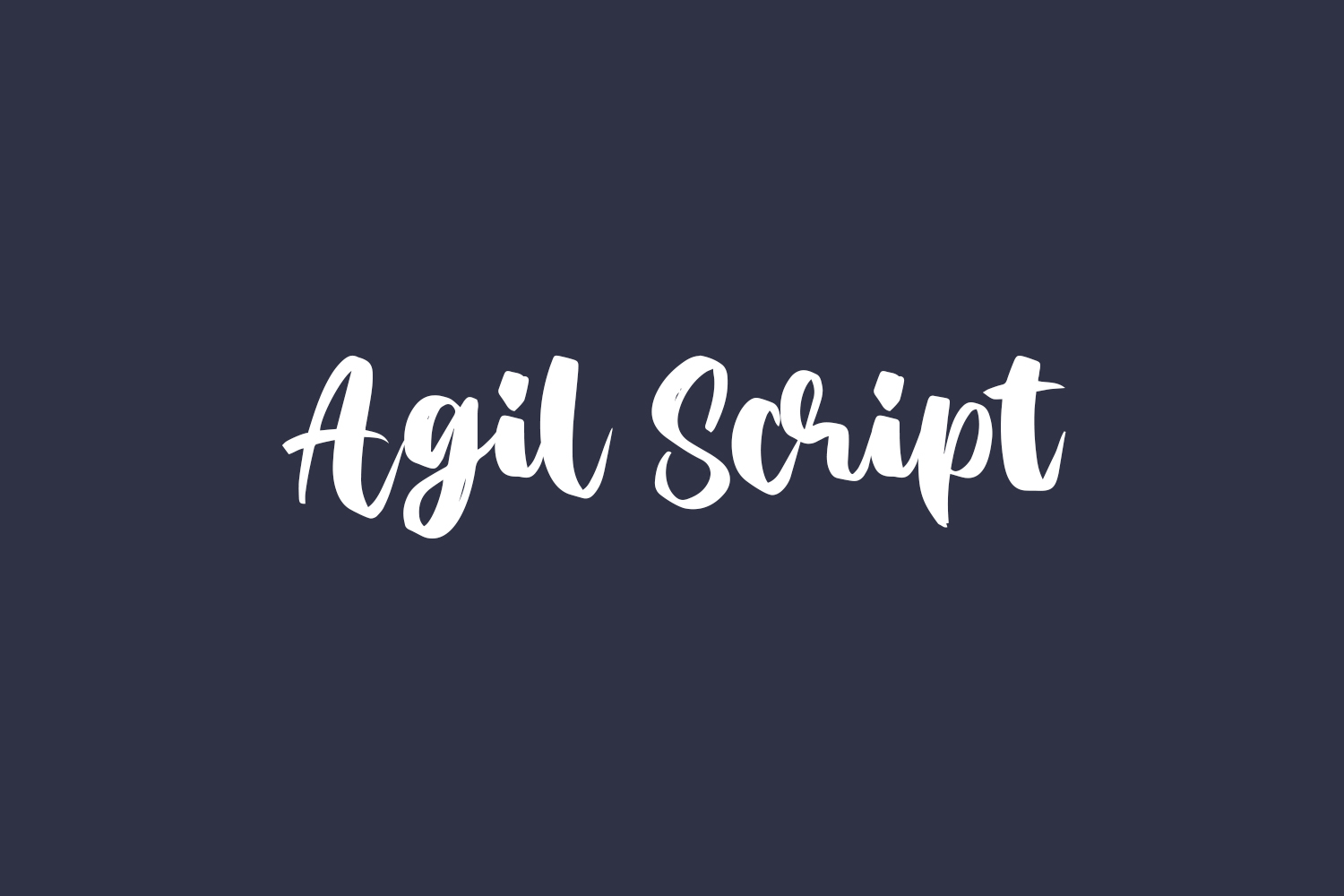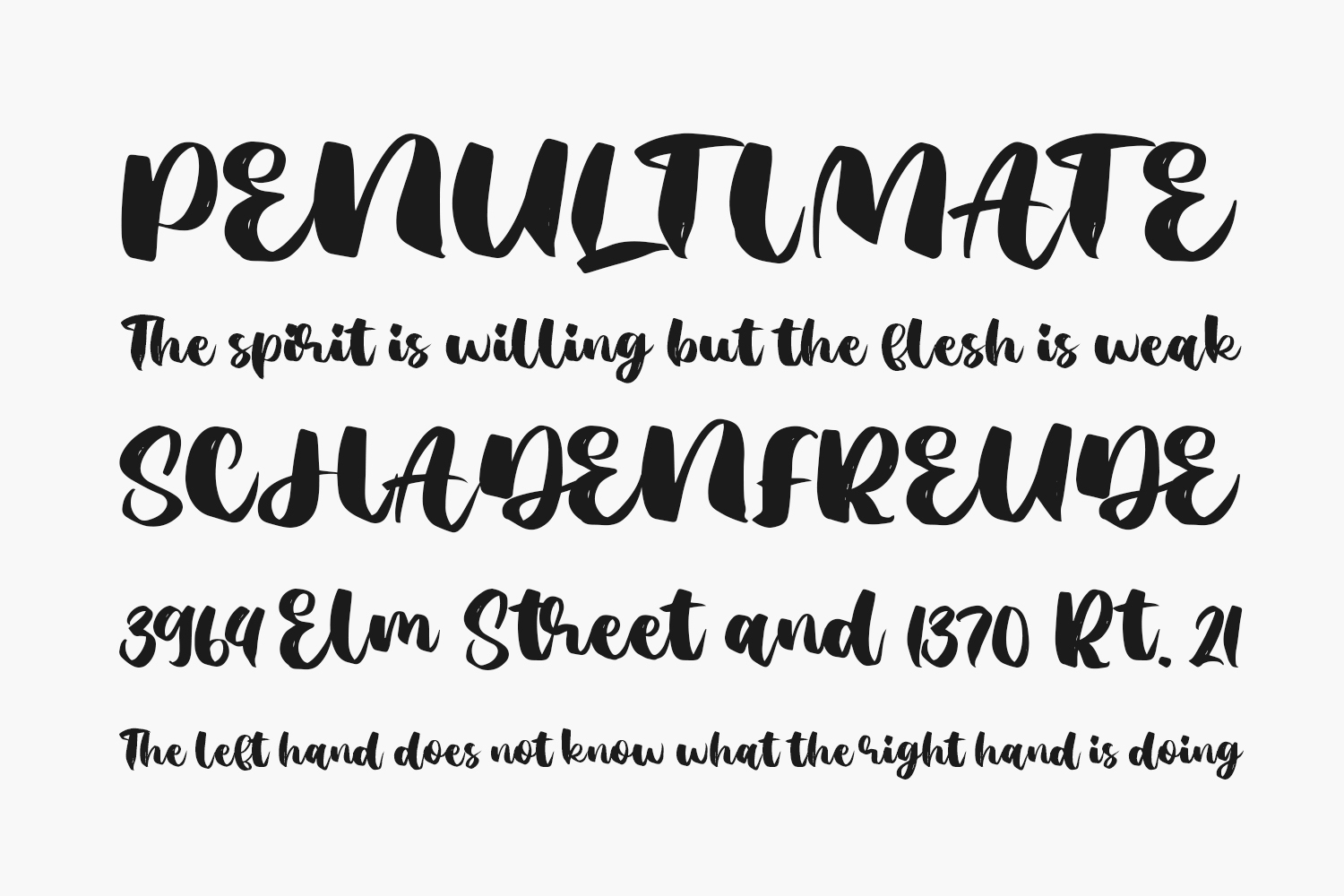
Agil Script Free Font is a lovely script font featuring charming, playful characters that seem to dance along the baseline. Add this font to your most creative ideas, and notice how it makes them stand out. Agil Script Free Font was designed by StringLabs and is free for personal use only. Please purchase the full version for commercial use.